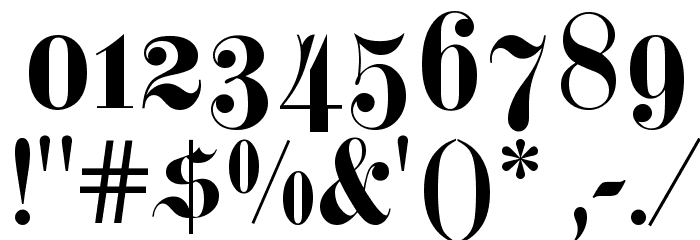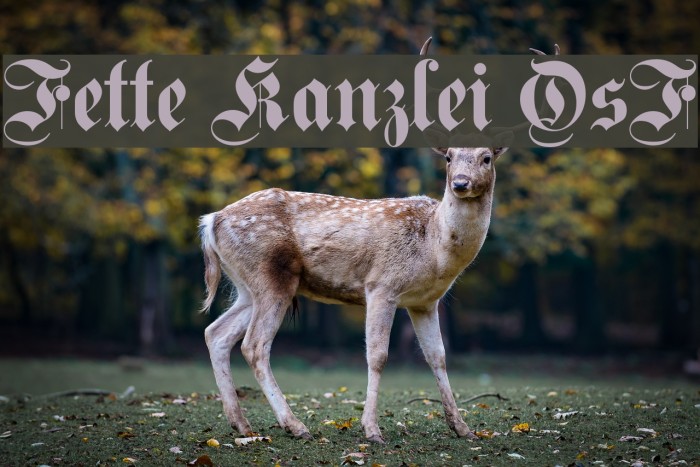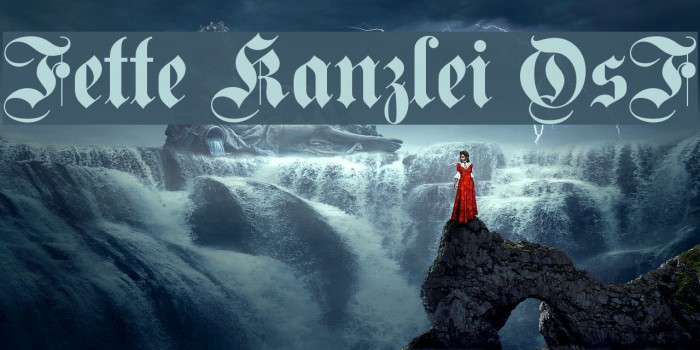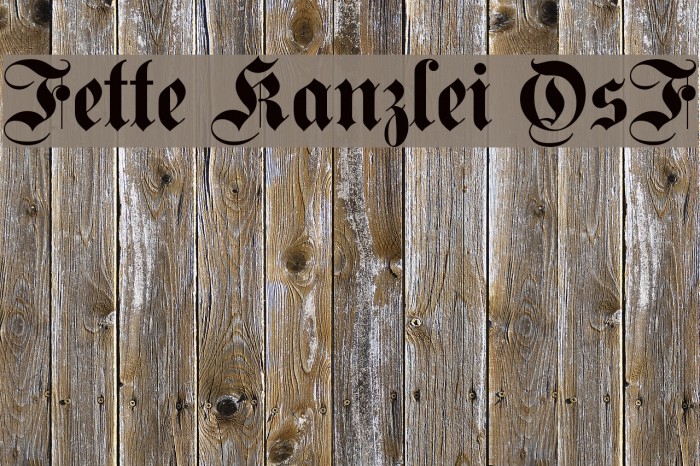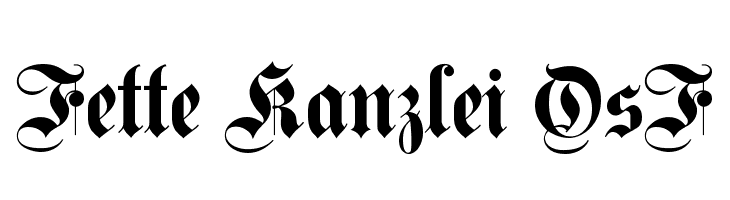
Fette Kanzlei OsF Font
This font is a bold and dramatic blackletter style, characterized by its intricate and ornate design. The uppercase letters feature elaborate flourishes and sharp angles, giving them a distinct Gothic appearance. The lowercase letters maintain a similar aesthetic with thick strokes and pointed serifs, creating a cohesive and visually striking typeface. The numerals are bold and consistent with the overall style, while the special characters are equally ornate, adding to the font's decorative appeal. This font is ideal for projects that require a historical or medieval touch, offering a sense of tradition and elegance.
A bold, ornate blackletter font with Gothic flourishes and sharp angles.
- Proposed Projects: Perfect for historical documents, medieval-themed designs, book covers, posters, and branding that requires a traditional or Gothic touch.
- Category: Blackletter
- Overall Style: Vintage
- Use Case: Logos, Headlines, Decorative purposes